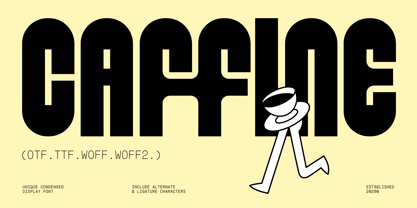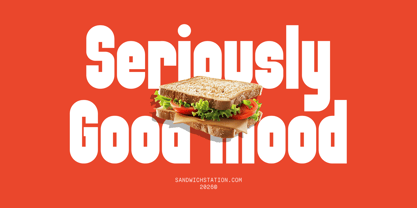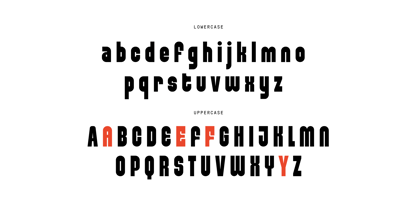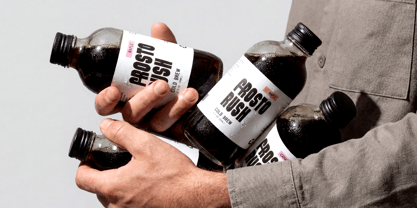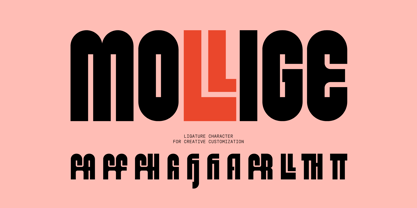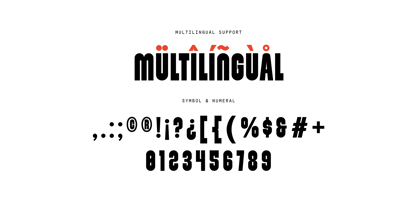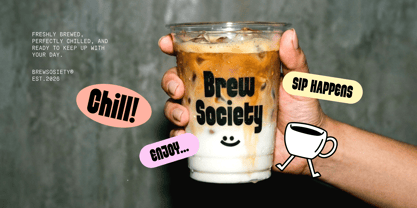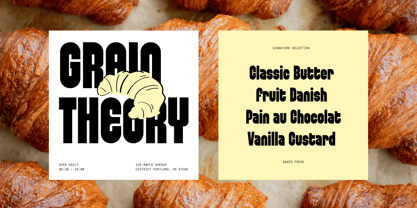
Caffine
The Caffine Font Family was designed by Rizki Kurniawan, Rizki Kurniawan Darsono and published by inipagi. Caffine contains 1 styles. More about this family
Meet Caffine - Unique Condensed Display Font, a bold and tightly-set display typeface crafted to energize coffee and cafe branding. With its condensed structure and unique character, Caffine is especially recommended for coffee shop logos, packaging labels, and menu boards. Beyond coffee culture, its striking silhouette also adapts beautifully to street food branding, urban merchandise, and bold editorial headlines.
The vision for Caffine - Unique Condensed Display Font was to translate the jolt of a strong espresso shot into typography. Inspired by industrial coffee packaging and modern roastery branding, each letterform is compressed and confident, built to command attention in tight spaces. This makes it perfect for brands that need bold impact without sacrificing space, whether on a coffee bag label or a cafe storefront sign.